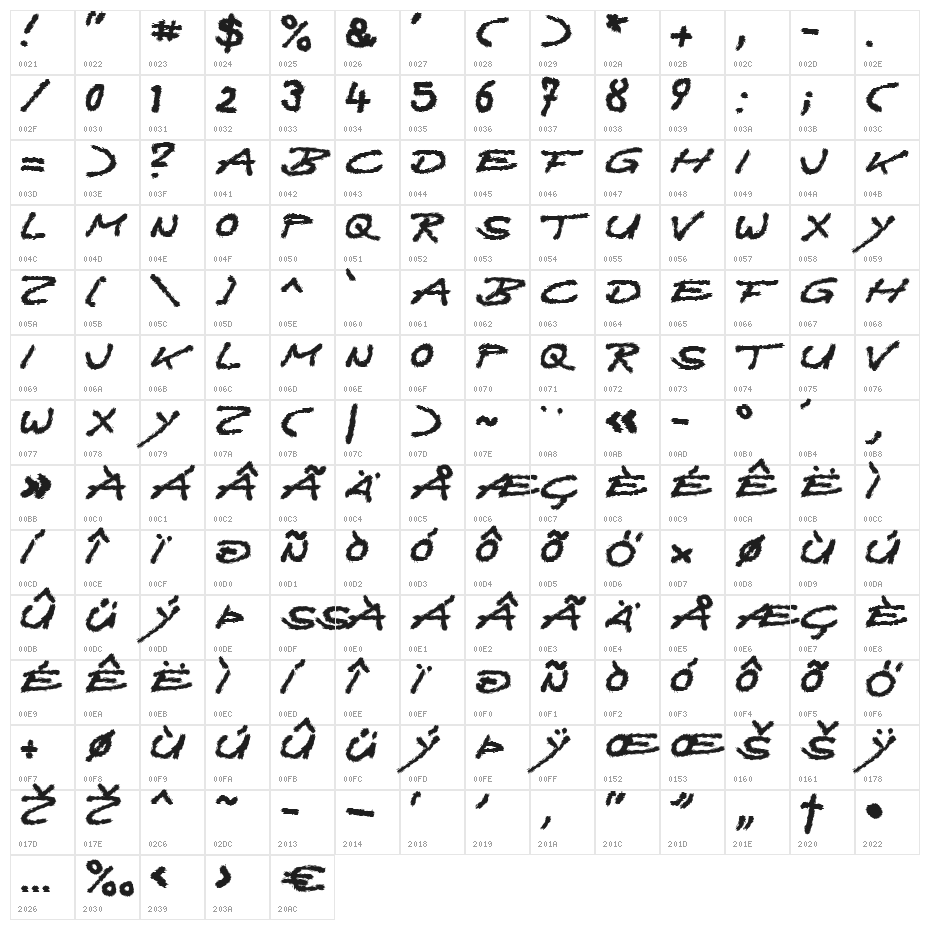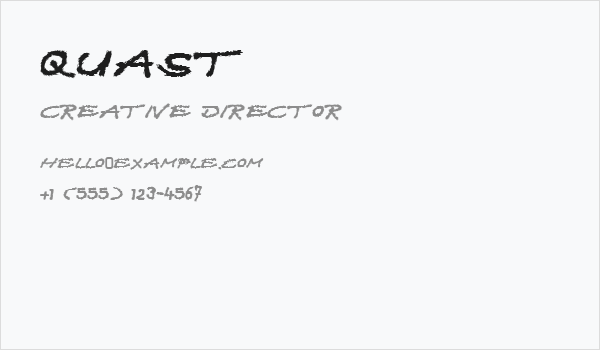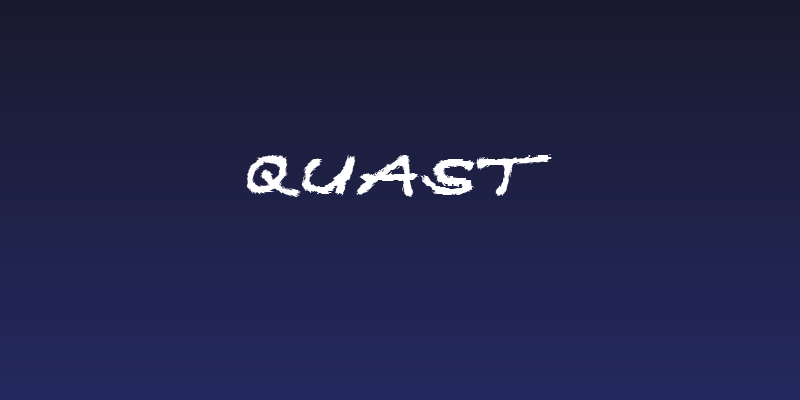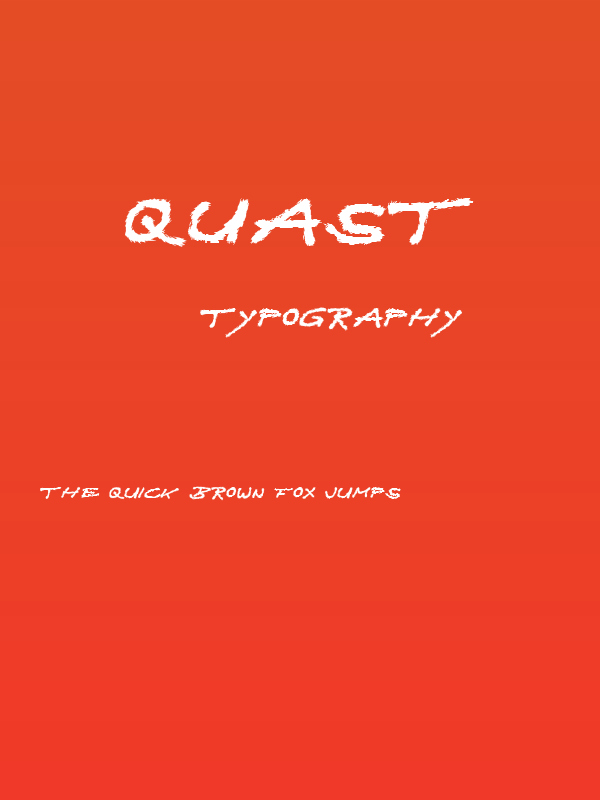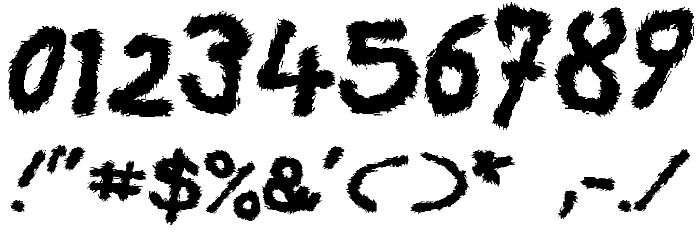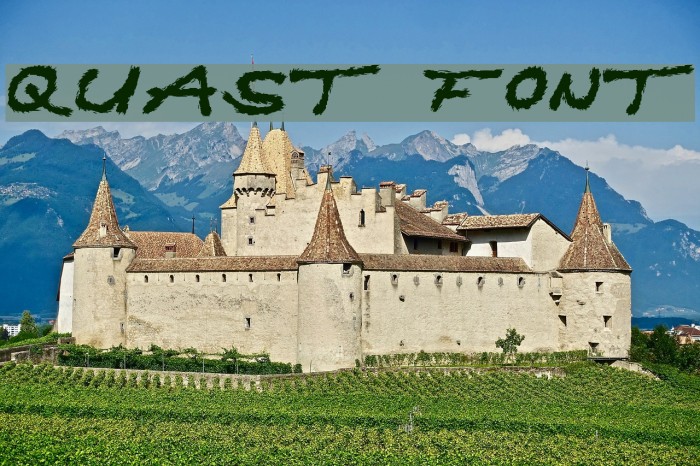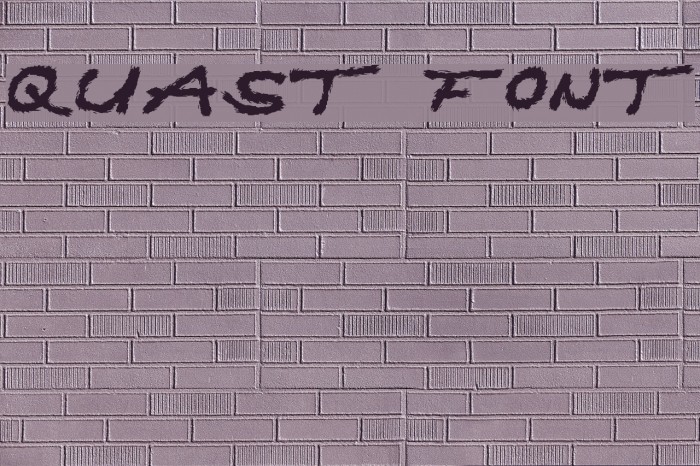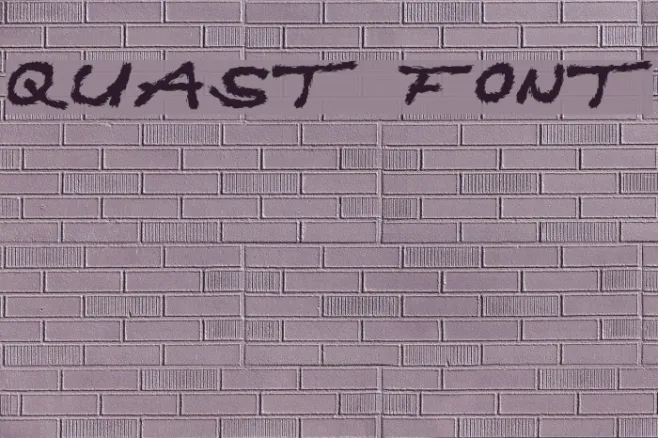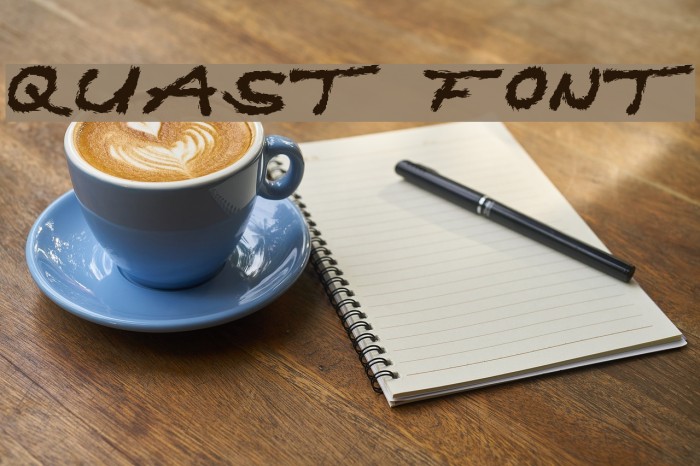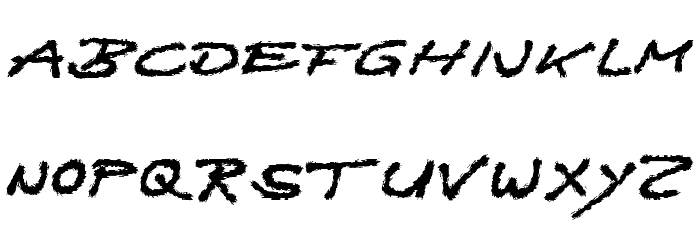
Quast Font
Quast Description
This font features a dynamic and energetic style, characterized by its brush-like strokes and slightly irregular edges, giving it a hand-drawn appearance. The uppercase and lowercase letters maintain a consistent flow, while the numbers and special characters exhibit a bold and expressive quality. The overall design is reminiscent of a script font but with a more rugged and textured finish, making it stand out in any design project. Its unique style is suitable for creative and artistic applications, where a touch of personality and flair is desired.
| Proposed Projects | Ideal for branding, posters, album covers, and artistic projects requiring a bold statement. |